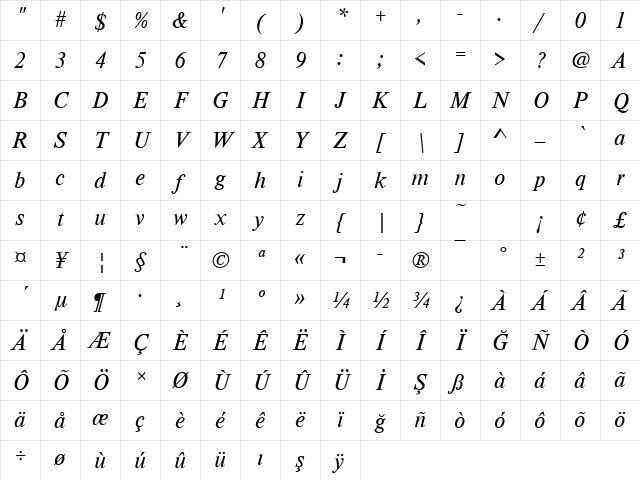
TimelessTTULig Italic
Design Context for TimelessTTULig
TimelessTTULig is a composed and adaptable typeface that performs quietly and consistently across a wide range of design contexts. The slanted form adds forward momentum and visual energy.
Pro Tip: Use TimelessTTULig for emphasis, pull quotes, and subheadings where its slanted energy can add rhythm to the layout.